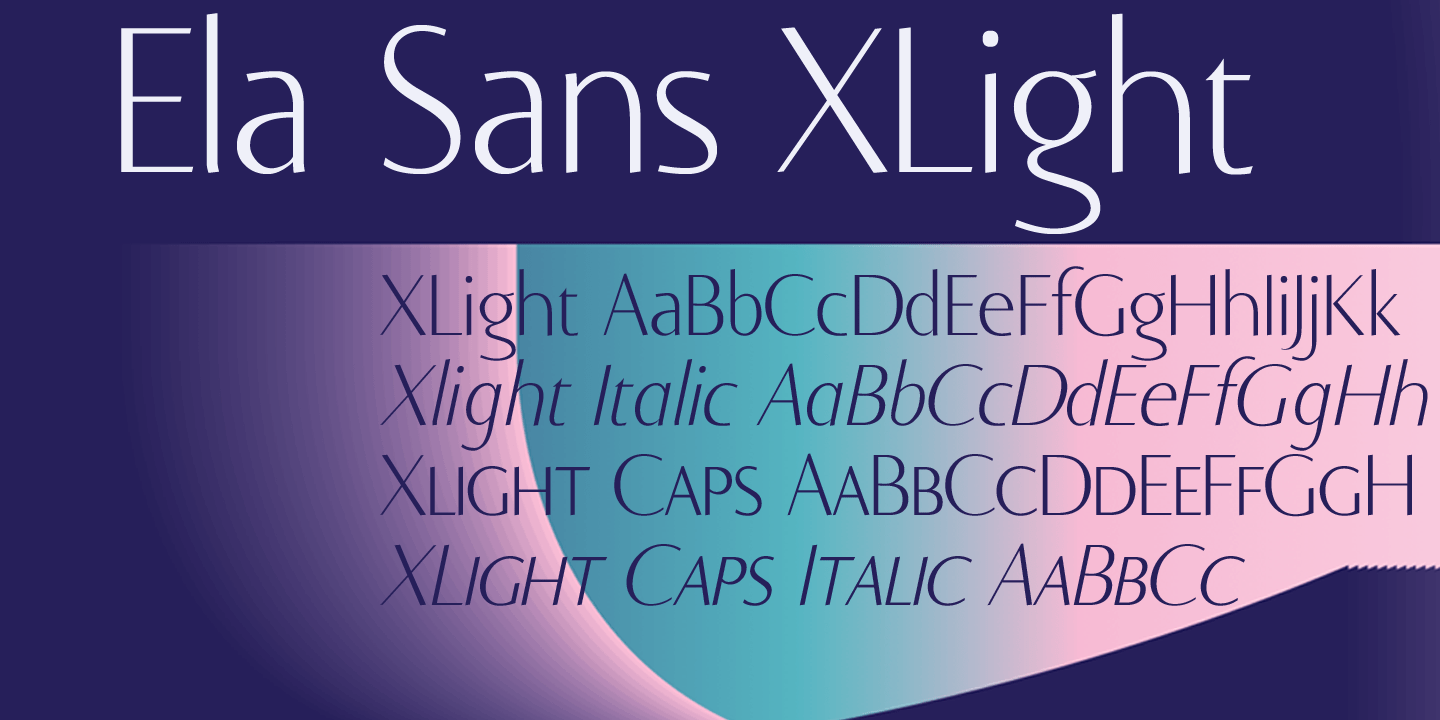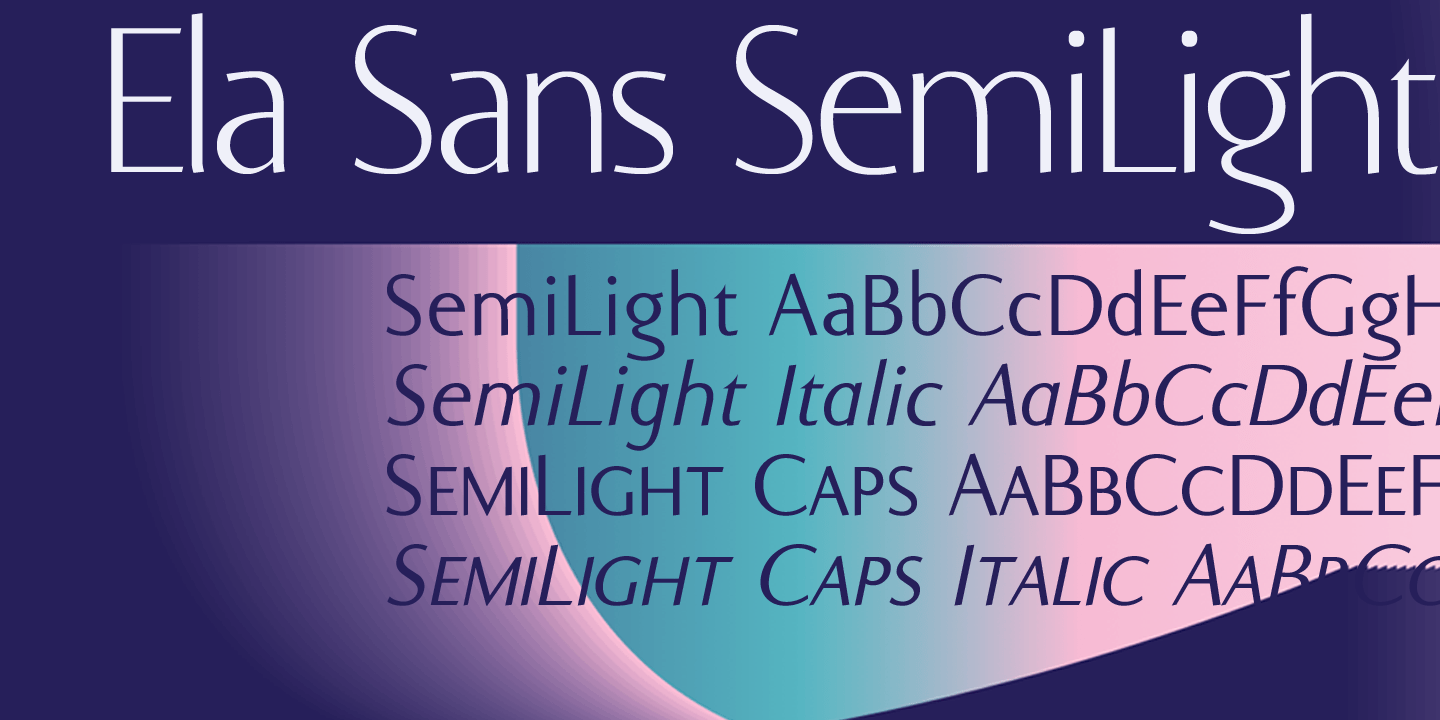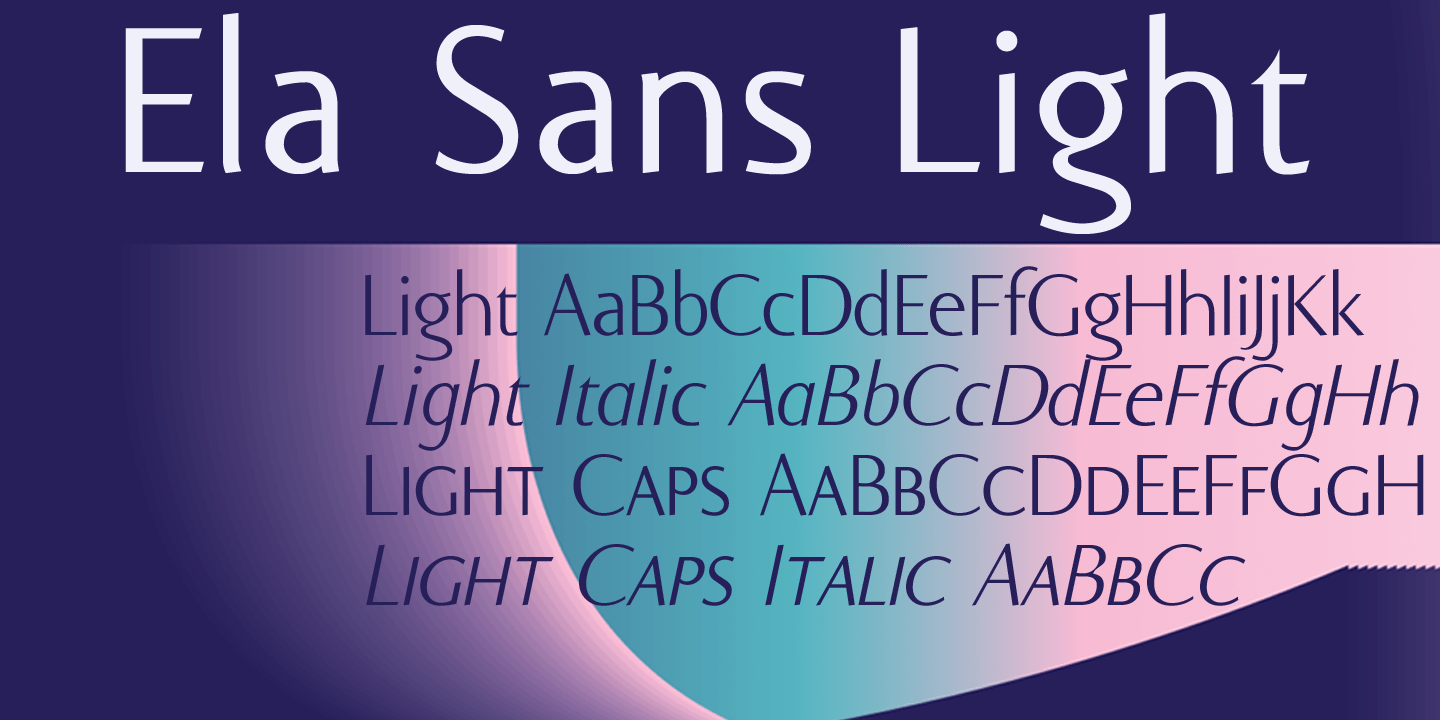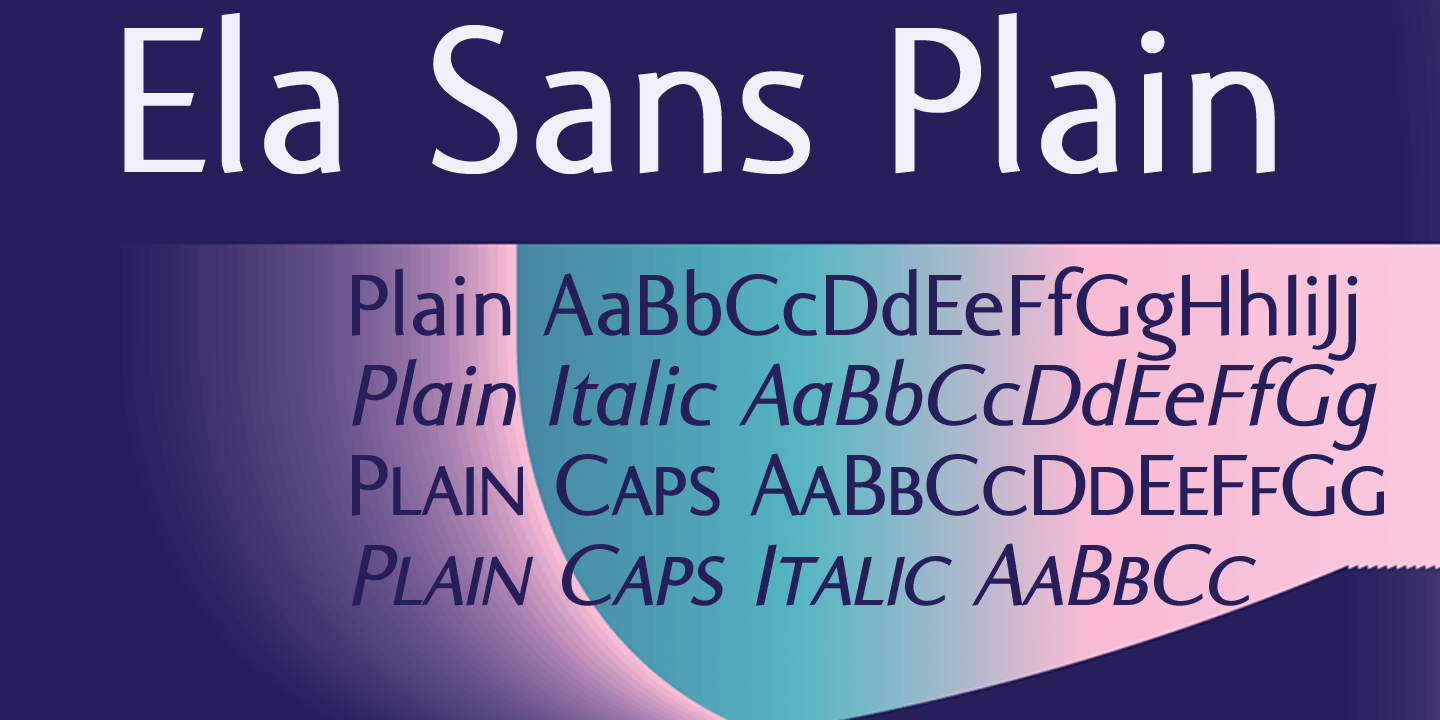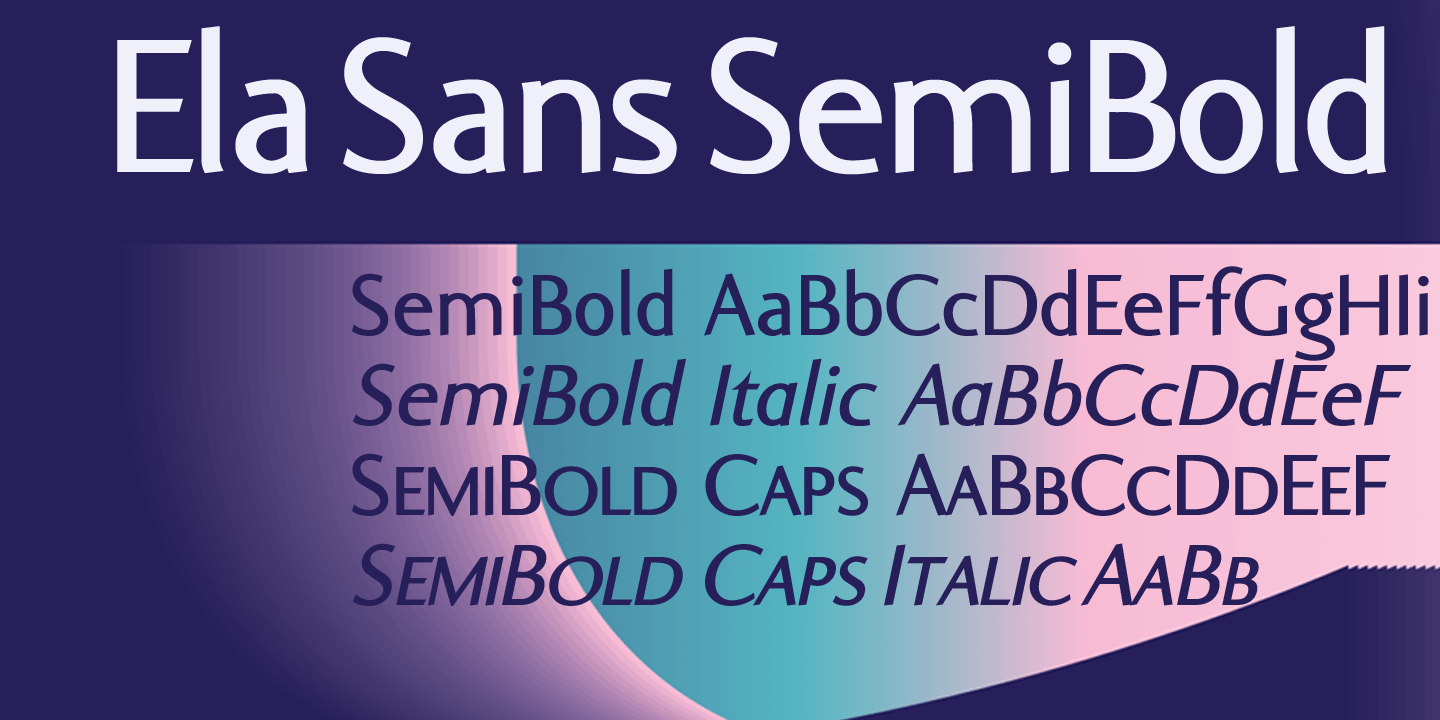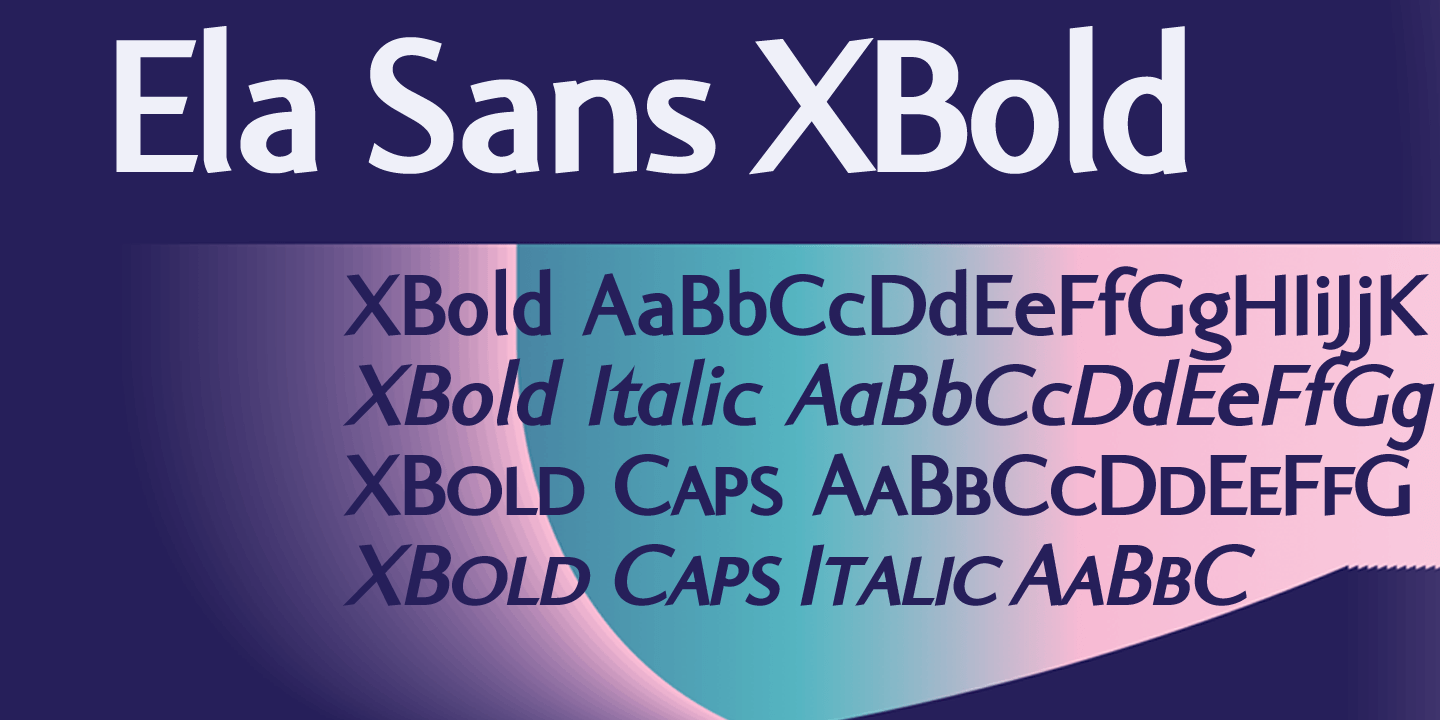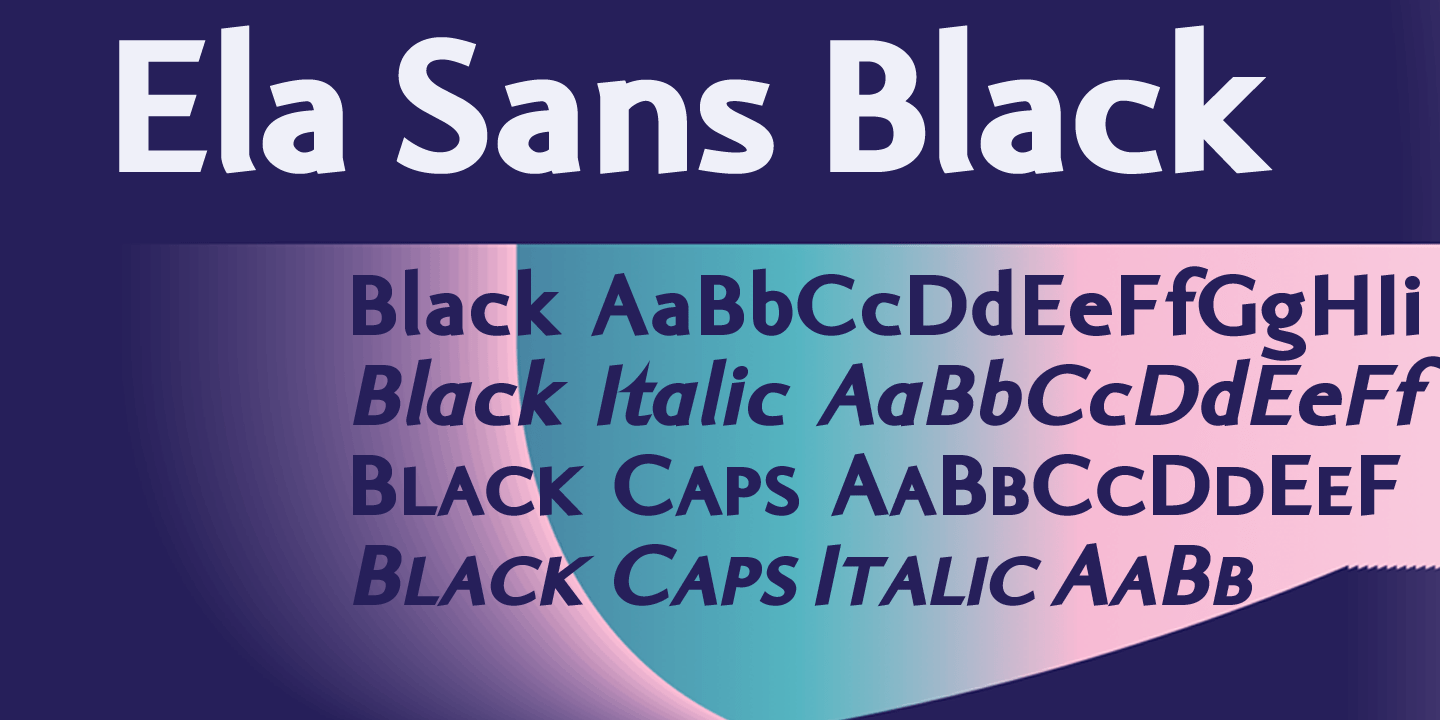
Ela Sans
Buy NowEla Sans is the sister of the typeface I originally designed for the business of my second wife and mother of my two sons, her name is - of course - Michaela.
Ela - the typeface - is suitable for magazines, newspapers, posters, advertiments, books, text, documentation/business reports, business correspondence, multimedia, and corporate design.
Because lately this typeface became very popular I decided to extend the Ela Sans family to eight weights and I added italic and smallcaps versions to it.
So now Ela Sans and Demiserif together is a full fledged typeface family.